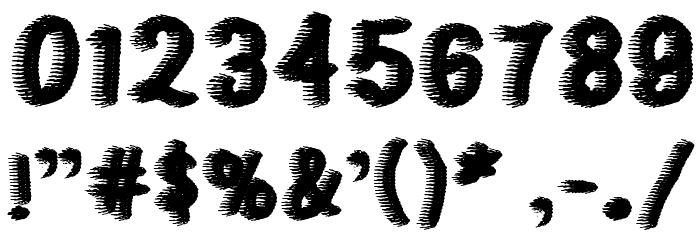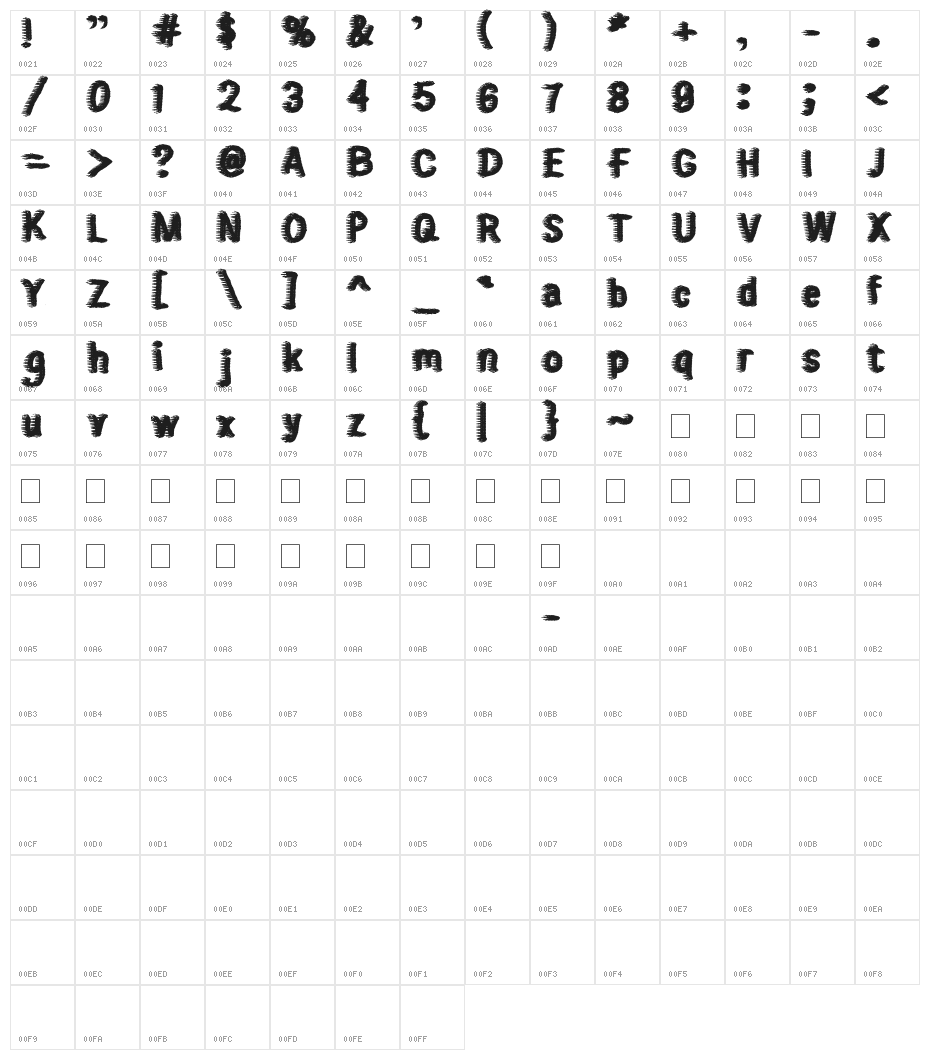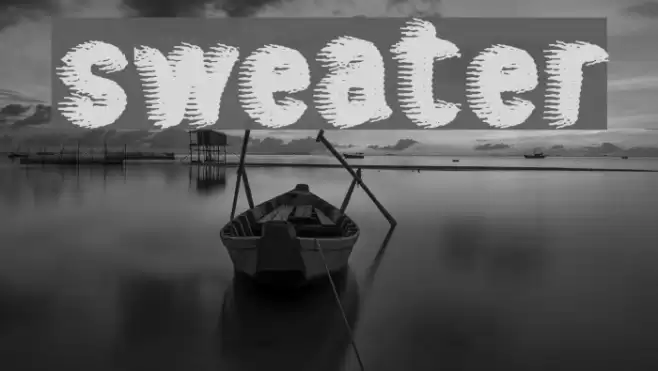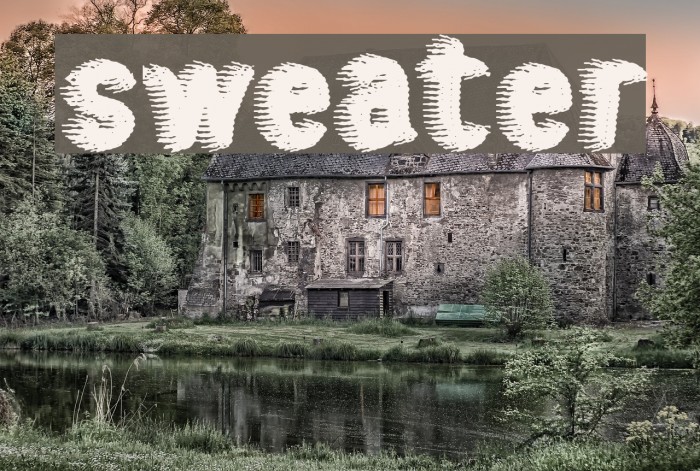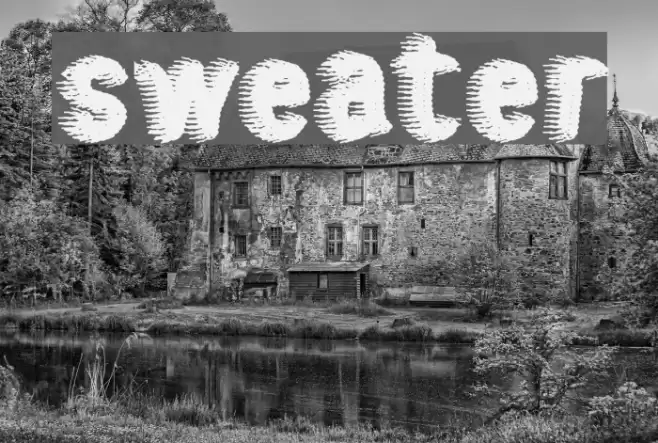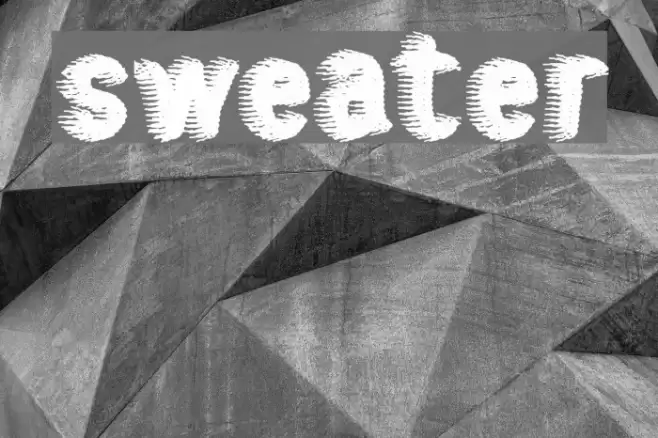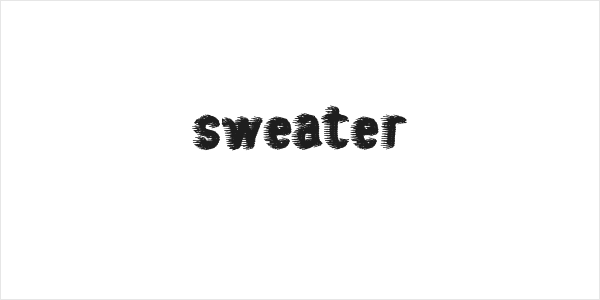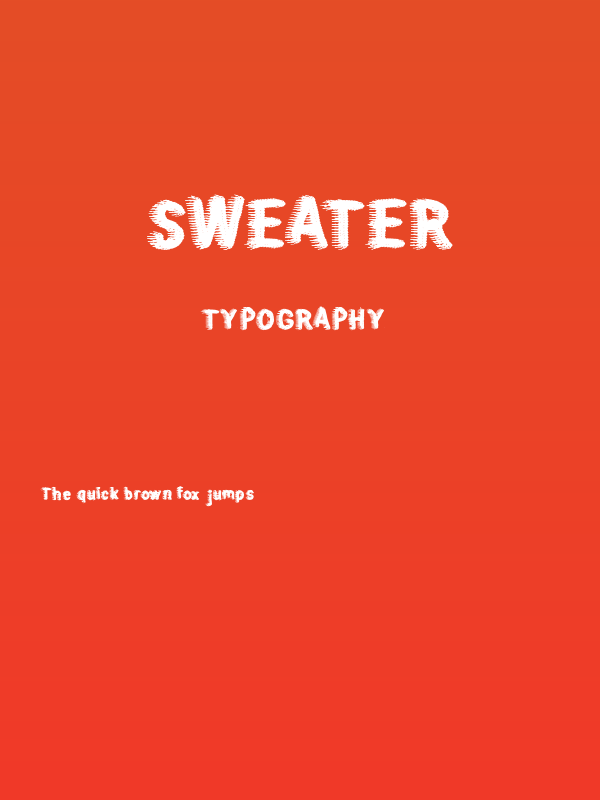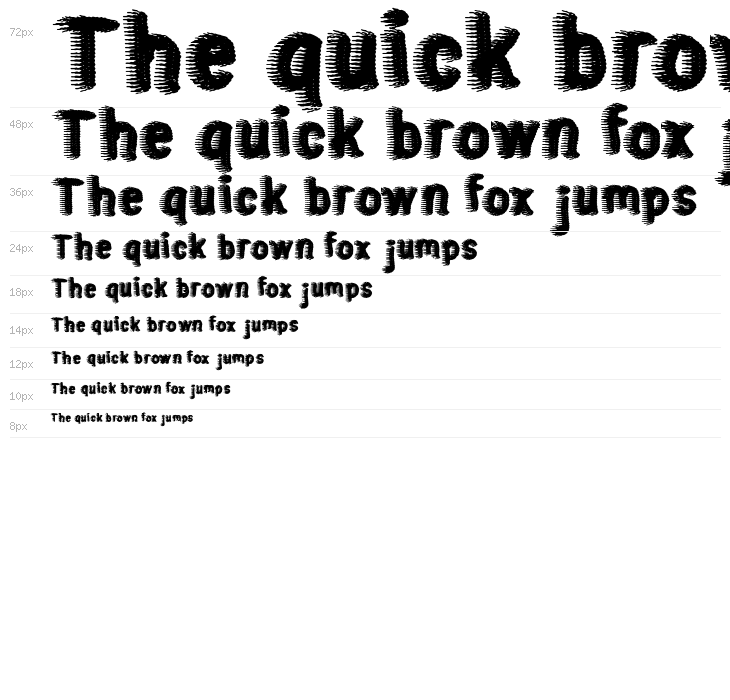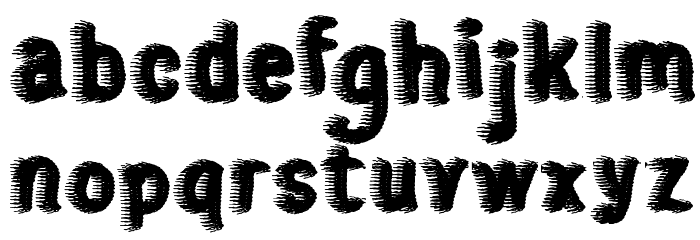
sweater Font
sweater Description
This font features a bold and textured style, reminiscent of brush strokes or hand-drawn lines. The characters are thick and have a playful, artistic feel, with a slightly irregular shape that adds to its charm. The strokes are consistent in their rough texture, giving the font a dynamic and energetic appearance. It maintains a good balance between readability and decorative flair, making it suitable for eye-catching designs. The font includes a full set of uppercase and lowercase letters, numerals, and a variety of special characters, ensuring versatility for different design needs.
| Overall Style | Artistic, Playful |
| Proposed Projects | Ideal for posters, branding, packaging, and creative projects that require a bold, artistic touch. |